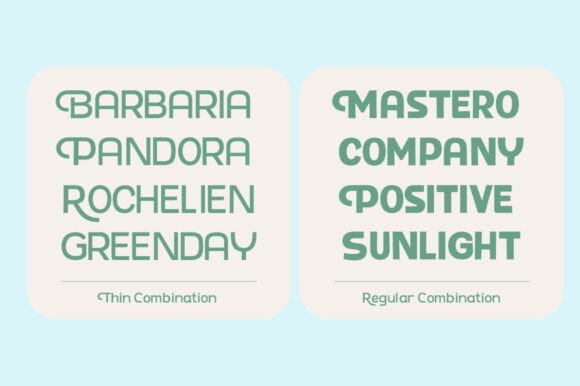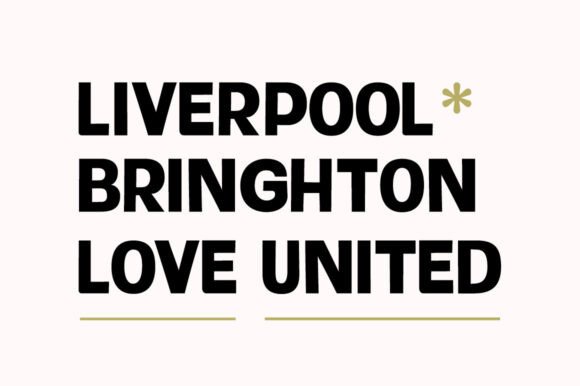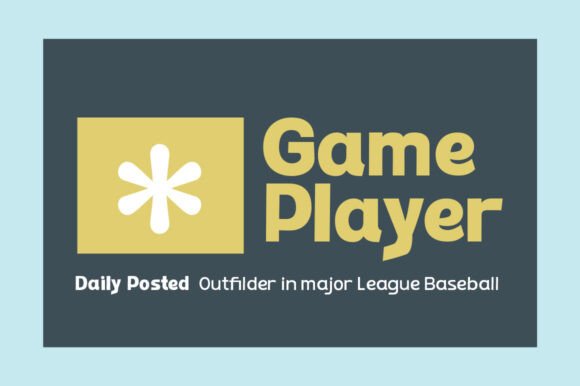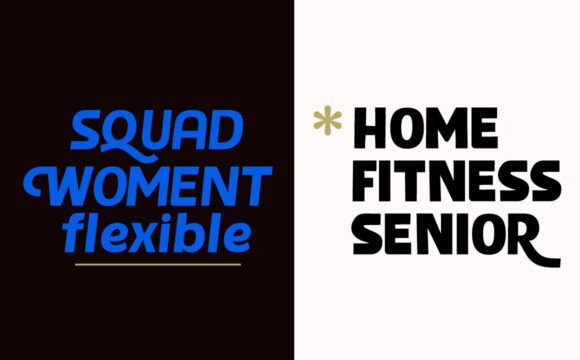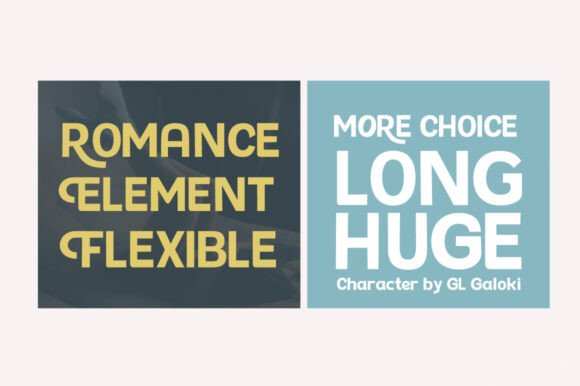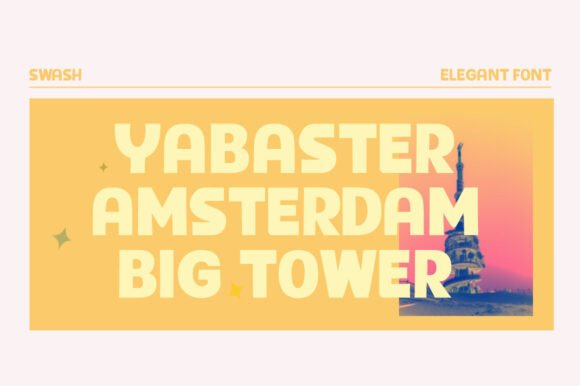
Introducing Galoki Font: The Ultimate Sans Serif for Modern Design
In the world of typography, a font can make or break a design. For designers and crafters looking for a bold and luxurious sans serif font, Galoki is the perfect solution. This versatile font family is crafted to bring sophistication and elegance to any project, making it ideal for a wide range of applications.
What is Galoki Font?
Galoki is a modern sans serif font family designed with clean curves and a confident structure. Its sleek and refined appearance makes it perfect for branding, editorial layouts, packaging, UI design, and corporate materials. Whether you’re working on a digital project or a print design, Galoki delivers a professional and approachable feel that’s sure to impress.
Key Features of Galoki Font
- Bold and Luxurious: Galoki’s bold and luxurious appearance makes it perfect for headlines, titles, and emphasis text.
- Clean Curves: The font’s clean curves and smooth lines create a friendly and approachable feel.
- Confident Structure: Galoki’s confident structure gives it a sense of stability and professionalism.
- Versatile: Galoki is designed to be versatile, making it suitable for a wide range of applications, from digital to print.
Why Choose Galoki Font?
There are many reasons why designers and crafters should choose Galoki font for their projects. Here are a few:
- Modern yet Friendly: Galoki’s modern appearance makes it perfect for contemporary designs, while its friendly feel ensures it remains approachable.
- Professional and Approachable: The font delivers a professional and approachable feel in every project, making it ideal for corporate materials and branding.
- Easy to Read: Galoki’s clean curves and confident structure make it easy to read, even at small sizes.
- Highly Versatile: Galoki can be used in a wide range of applications, from digital to print, making it a great addition to any designer’s toolkit.
How to Use Galoki Font
Galoki font can be used in a variety of ways, depending on your design needs. Here are a few ideas:
- Branding: Use Galoki as a headline font to create bold and attention-grabbing logos.
- Editorial Layouts: Galoki is perfect for article titles, subtitles, and emphasis text.
- Packaging: Use Galoki to create eye-catching packaging designs that stand out on store shelves.
- UI Design: Galoki’s clean curves and confident structure make it perfect for UI elements, such as buttons and menus.
- Corporate Materials: Use Galoki for company reports, brochures, and other corporate materials to create a professional and approachable feel.
Tips for Pairing Galoki Font with Other Fonts
Pairing Galoki with other fonts can create a unique and visually appealing design. Here are a few tips:
- Use a Serif Font for Body Text: Pair Galoki with a serif font for body text to create a nice contrast between headings and body text.
- Choose a Font with a Similar Style: Select a font with a similar style to Galoki to create a cohesive look.
- Experiment with Font Sizes: Play around with different font sizes to create visual interest and hierarchy.
Galoki font is a versatile and sophisticated sans serif font family that’s perfect for modern designs. Its clean curves, confident structure, and bold and luxurious appearance make it ideal for a wide range of applications, from branding to UI design. With its modern yet friendly feel, Galoki delivers a professional and approachable feel in every project. Whether you’re a designer or crafter, Galoki font is a great addition to your toolkit.